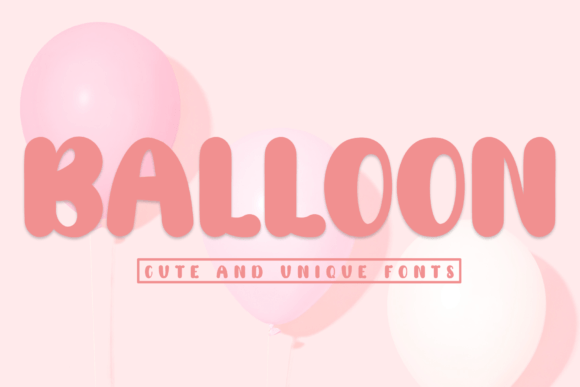
The Perfect Touch: Unleashing the Charm of Balloon Font
Have you ever been brainstorming design ideas for a special occasion and suddenly, a burst of creativity hits you? Perhaps it’s the perfect font that sets the tone for your project, making it stand out from the crowd. For many designers, this ‘aha’ moment is what makes their job so exciting. And for those seeking a font that exudes warmth and friendliness, Balloon Font is the perfect find.
Balloon Font is a delightful handwritten font that adds a fresh and neat touch to any design. Whether you’re crafting wedding invitations, cards, or any other project that requires a playful vibe, this font is sure to bring a smile to your audience’s face. Its value lies in its ability to instantly convey a sense of approachability and joy, making it a valuable addition to any designer’s toolkit.
Key Features of Balloon Font
- Unique Characteristics: The font features an inflated balloon-like shape with rounded edges, creating a playful and whimsical effect, perfect for children’s books, party invitations, and other festive materials.
- Style Options: The font comes in various styles, including Regular, Italic, Bold, and Bold Italic, allowing designers to experiment with different looks and moods.
Review of Balloon Font
When I first laid eyes on Balloon Font, I was immediately drawn to its playful, whimsical feel ✨. The rounded shapes and soft curves evoke a sense of friendliness and approachability, making it perfect for projects that need a lighthearted touch. The font is also highly customizable, with a wide range of sizes and colors available.
- Perfect for playful, whimsical projects
- Soft, rounded shapes
However, I do have some reservations about the font’s limitations ⚠️. For one, the bold weights can sometimes feel a bit too bold, overpowering the rest of the design. Additionally, the font may not be suitable for projects that require a more formal or professional tone.
- Can feel too bold in certain weights
- May not be suitable for formal or professional projects
Overall, I think Balloon Font is a great choice for designers who want to add a playful touch to their projects ✨. While it may have some limitations, its customization options and whimsical feel make it a valuable addition to any designer’s toolkit.
The Balloon Font is ideal for:
- Creative projects, such as illustrations and graphics.
- Children’s books and educational materials.
- Wedding invitations and party decorations.
Remember to use the Balloon Font in moderation to avoid overwhelming your design.